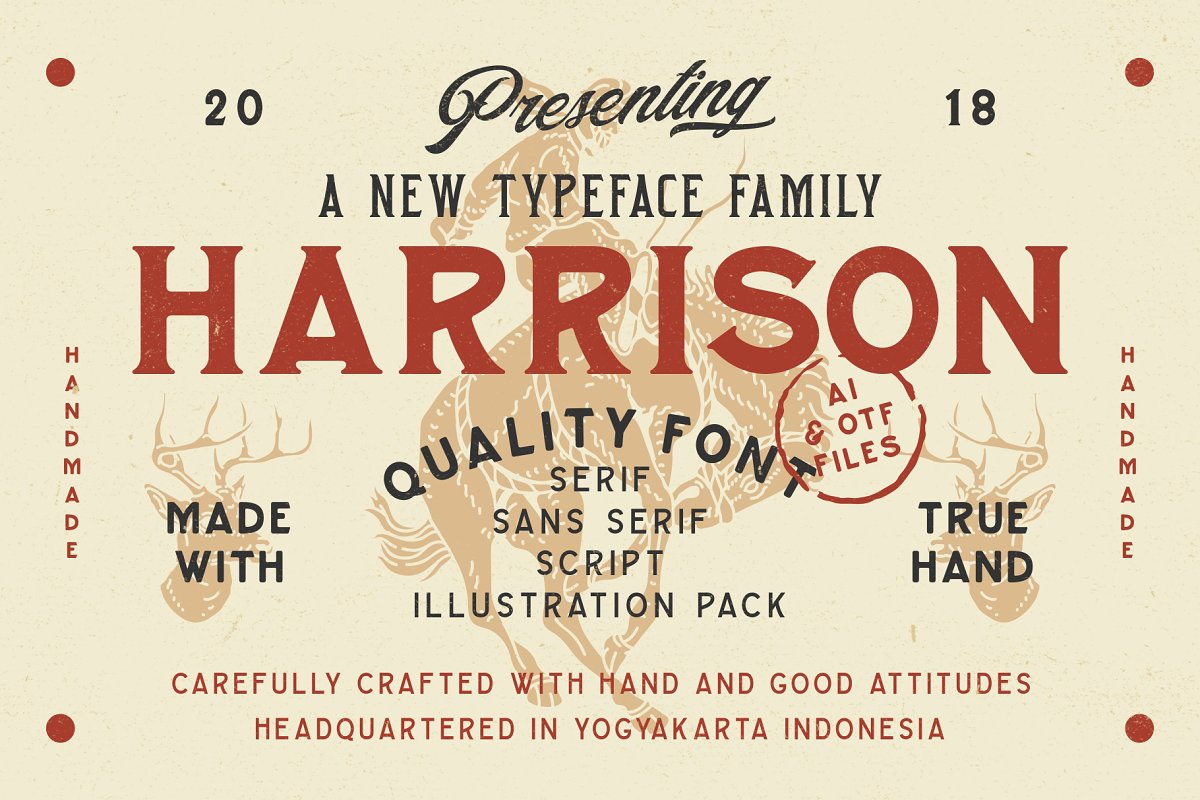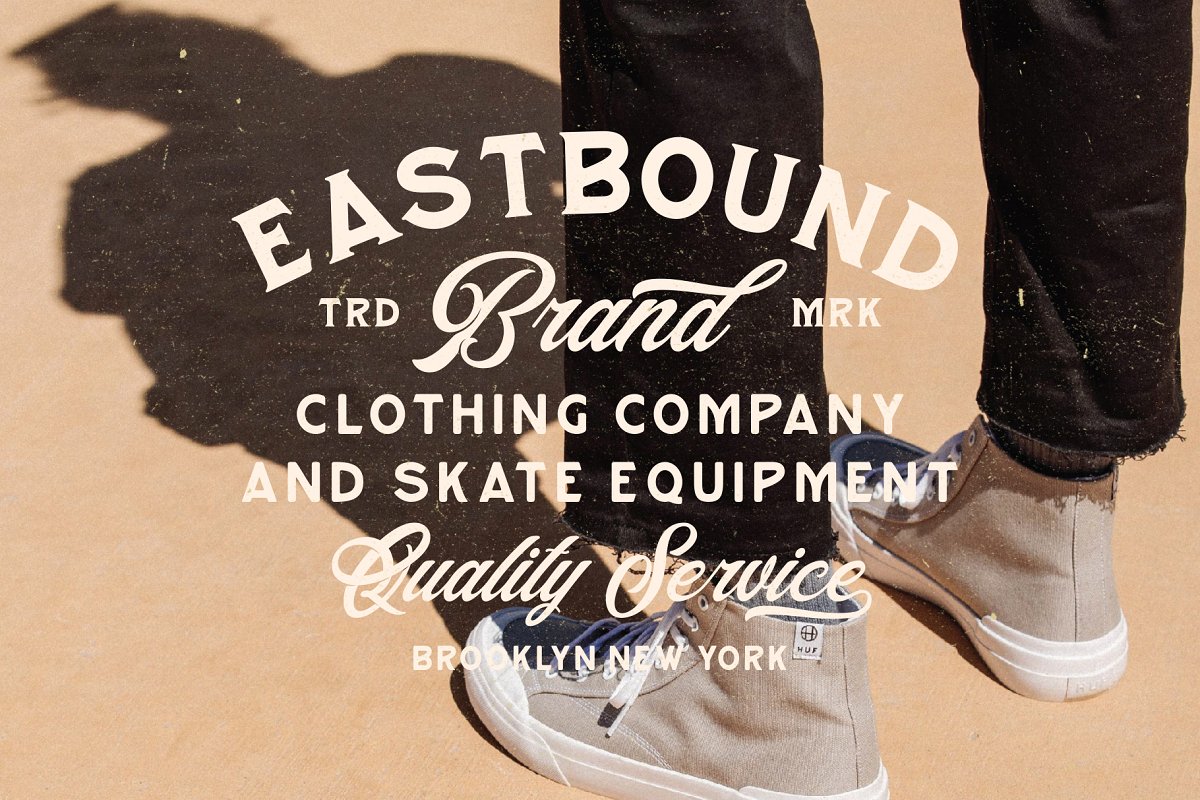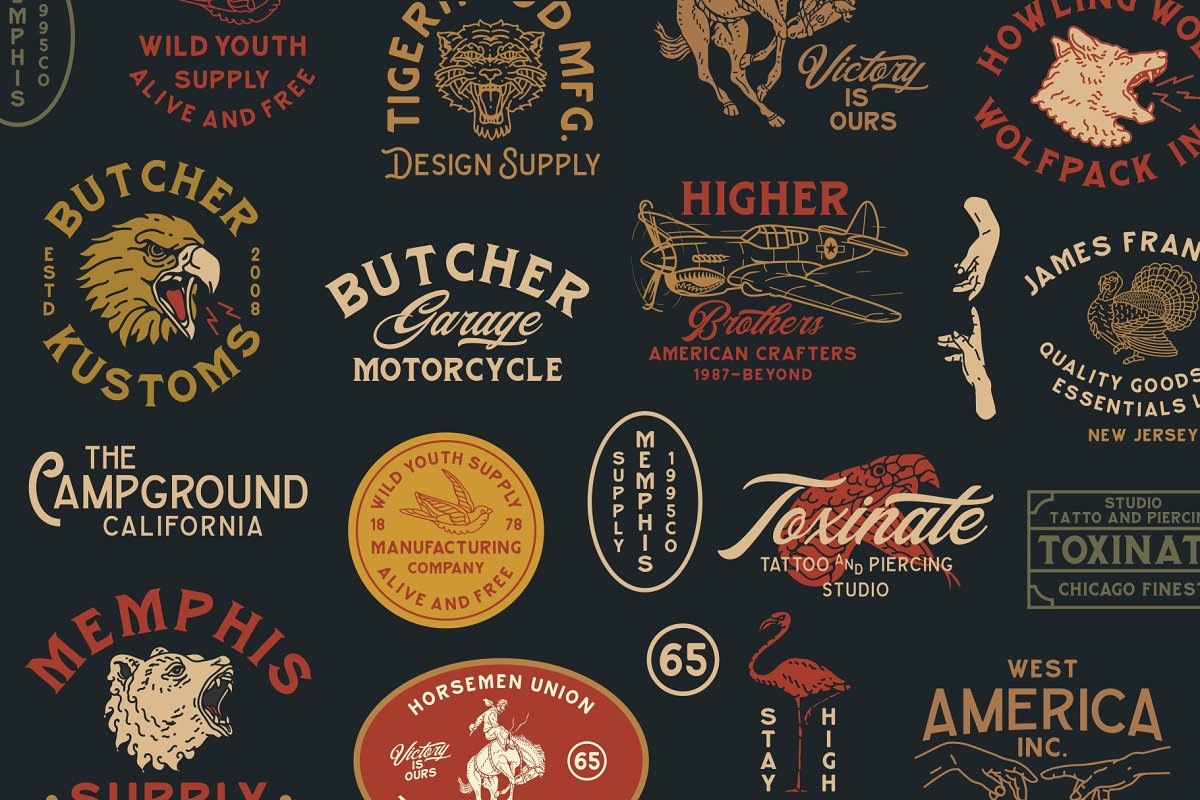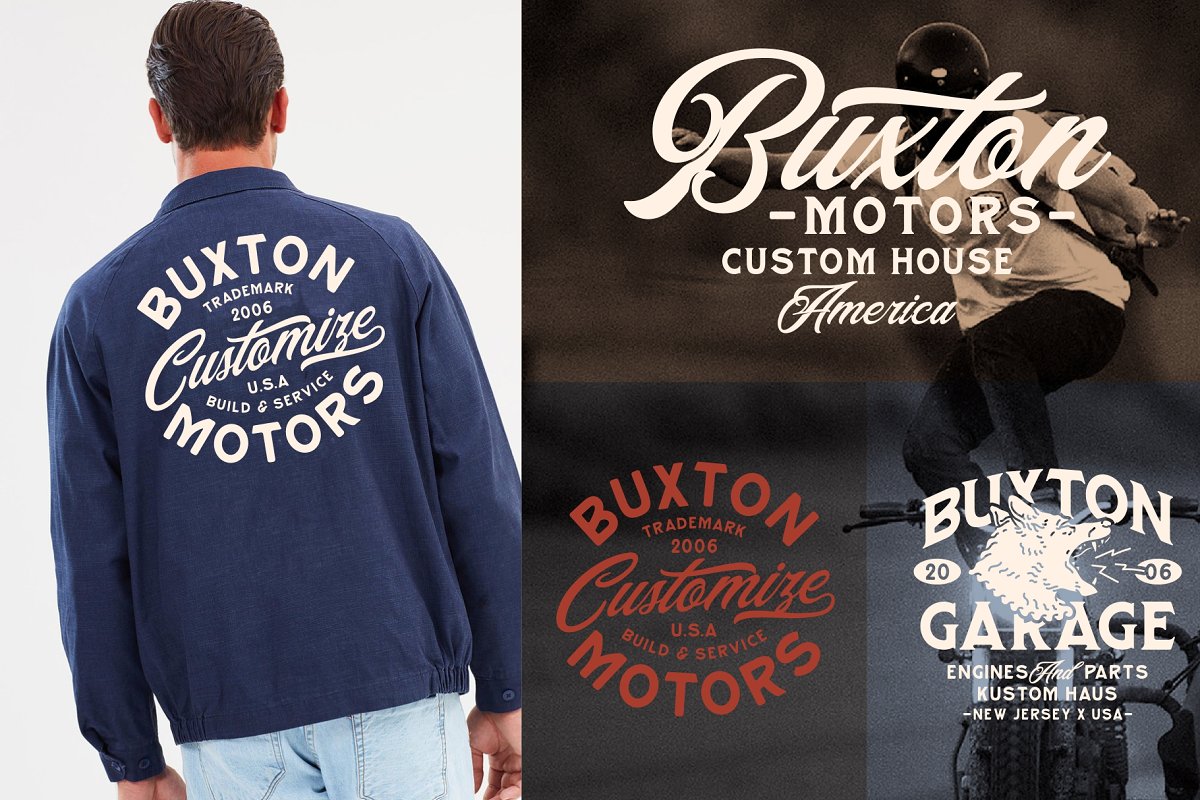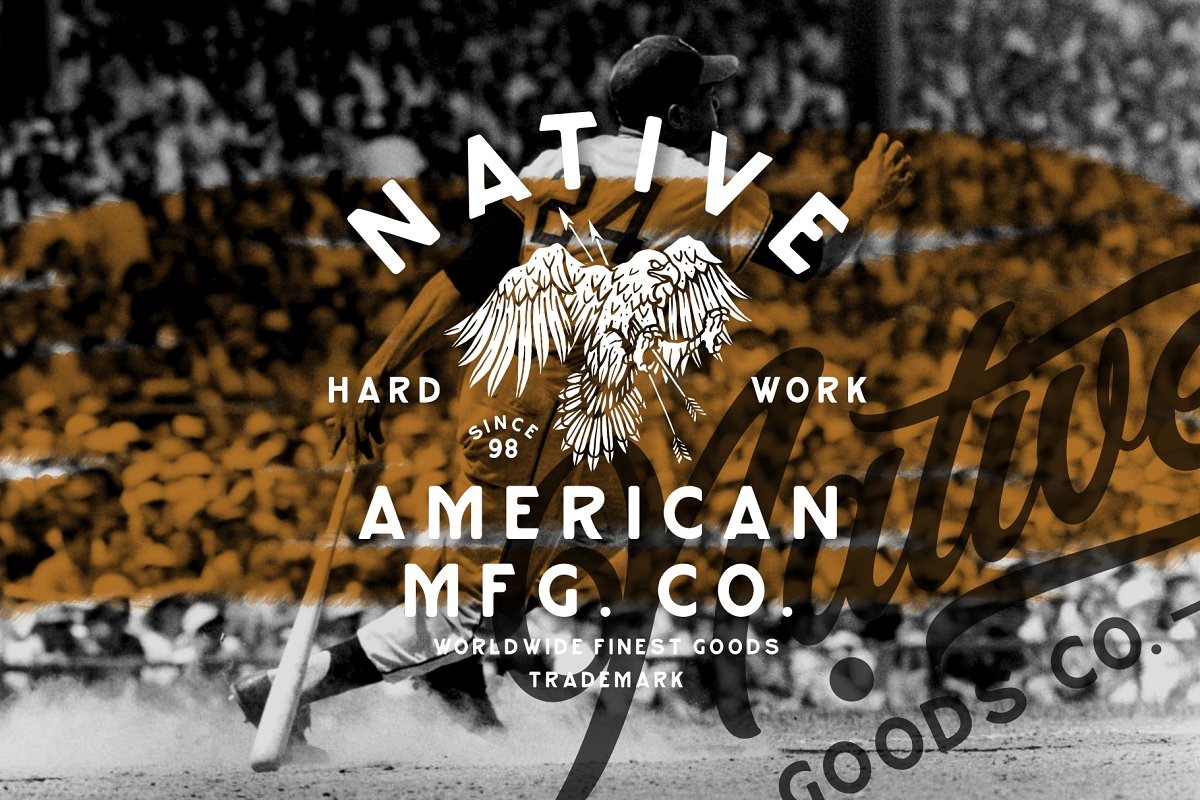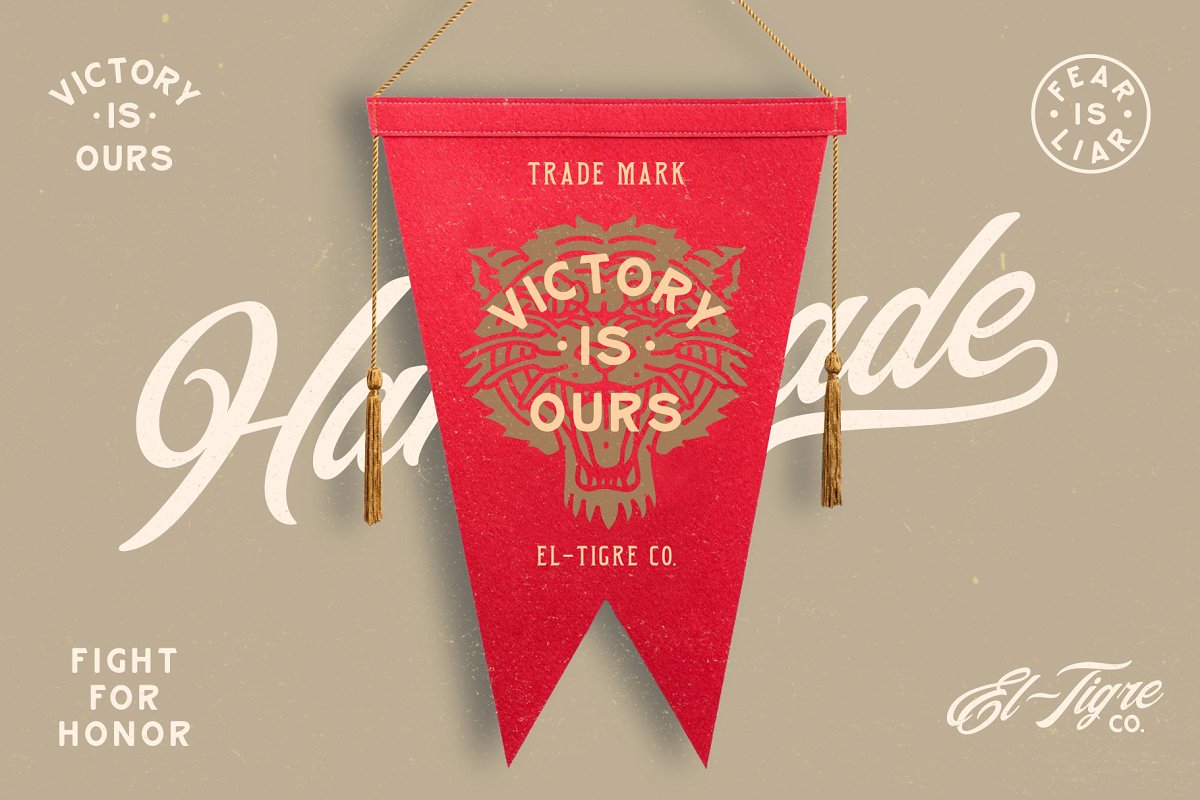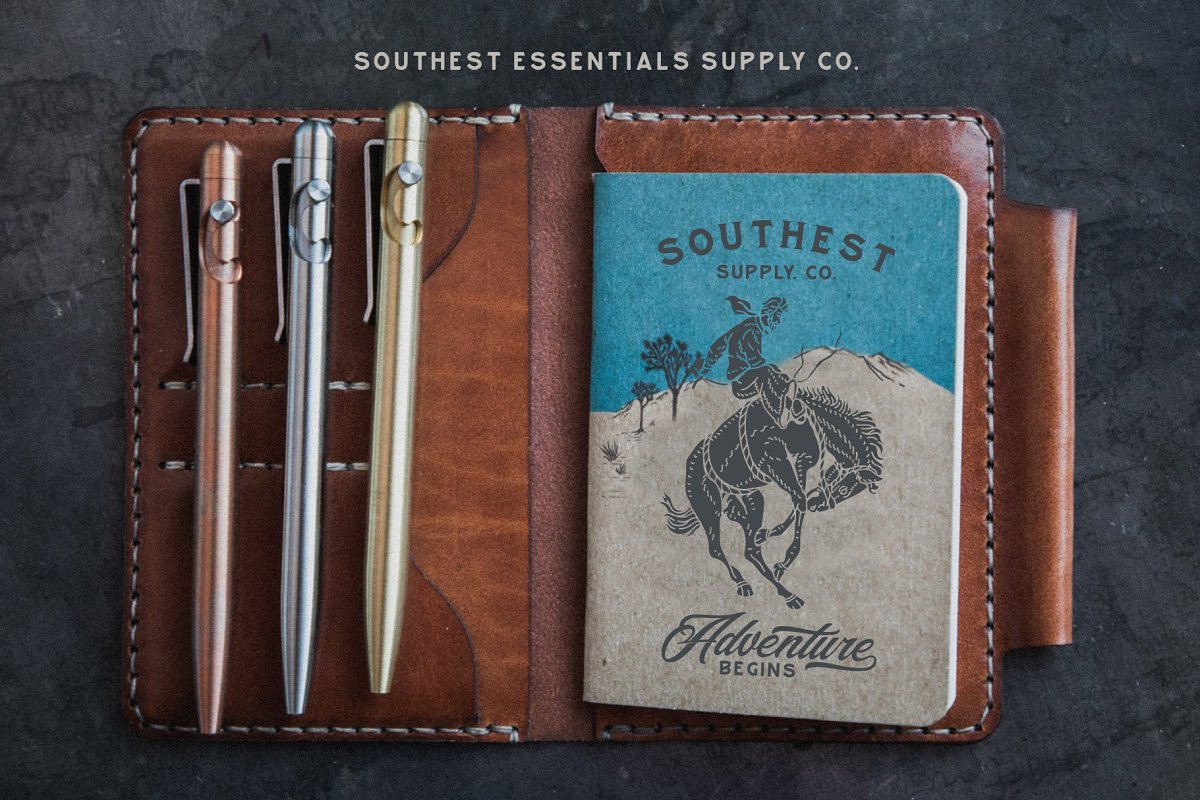
About the Harrison Font Family (Intro Sale)
PRESENTING HARRISON FONT FAMILYHarrison Font Family is handmade vintage script, serif and some serif fonts, Inspired by classic western culture, custom culture motorcycle and combining with vintage touch, There’s so many fonts that would be perfect to combine in your design, especially on vintage design, With bonus illustration in this package, this fonts are great for logotype, badges, clothing, poster, and much more
This fonts comes with opentype features and adobe illustrator format for illustration pack also many alternative style to improve your design, FeaturesUppercase and lowercase character (only uppercase for sans-serif and serif)Numeral, Punctuation and SymbolStylistic AlternatesLigaturesOpentype formatBonus illustration pack (